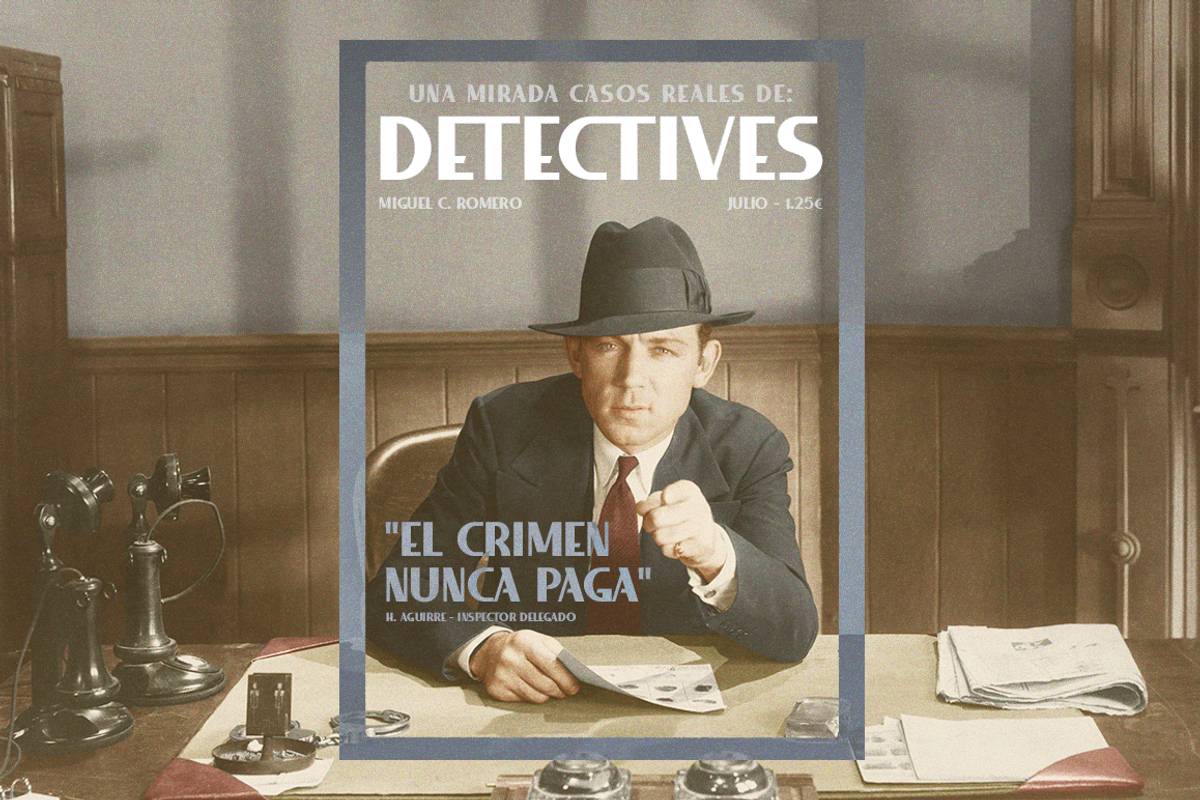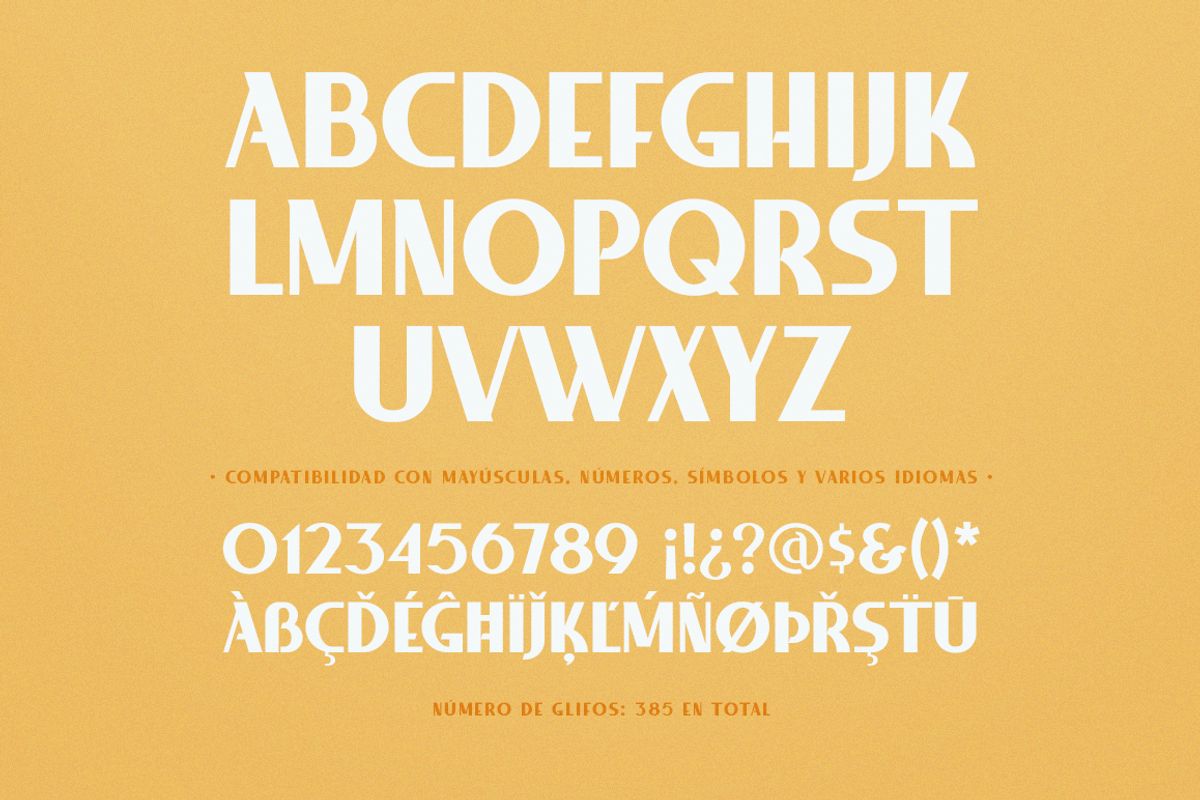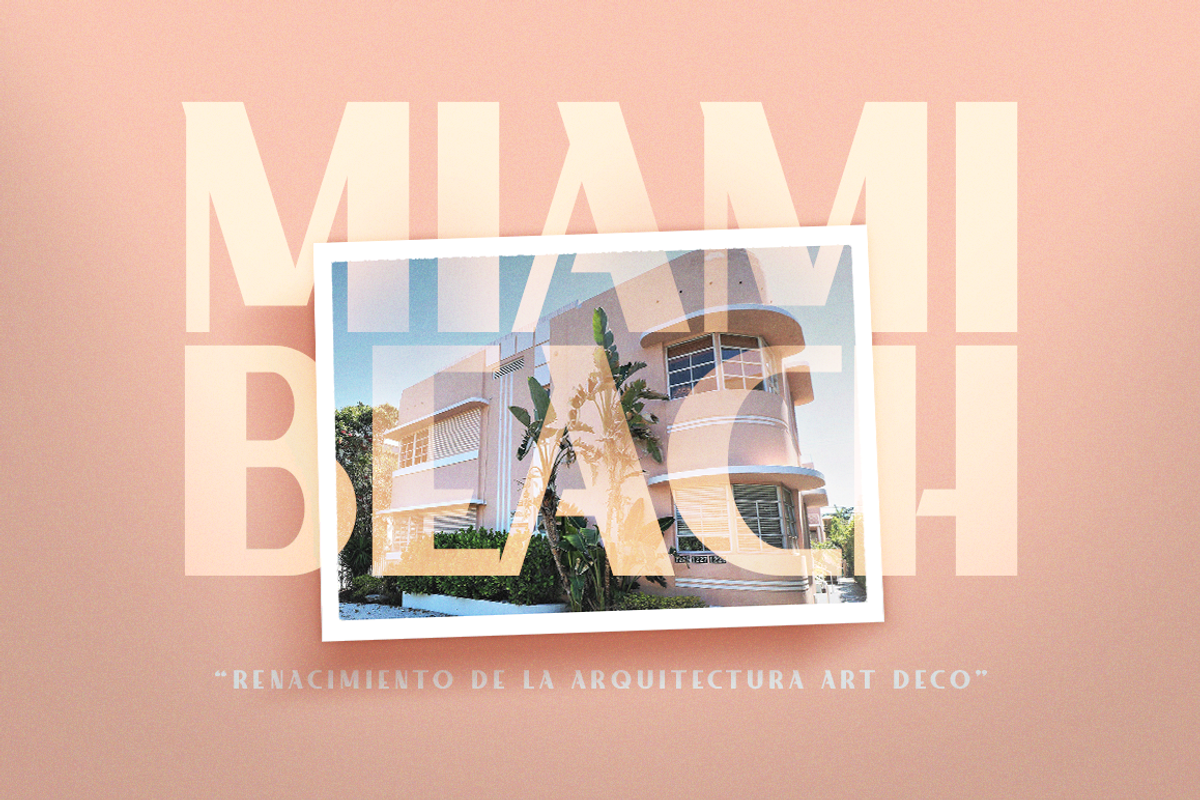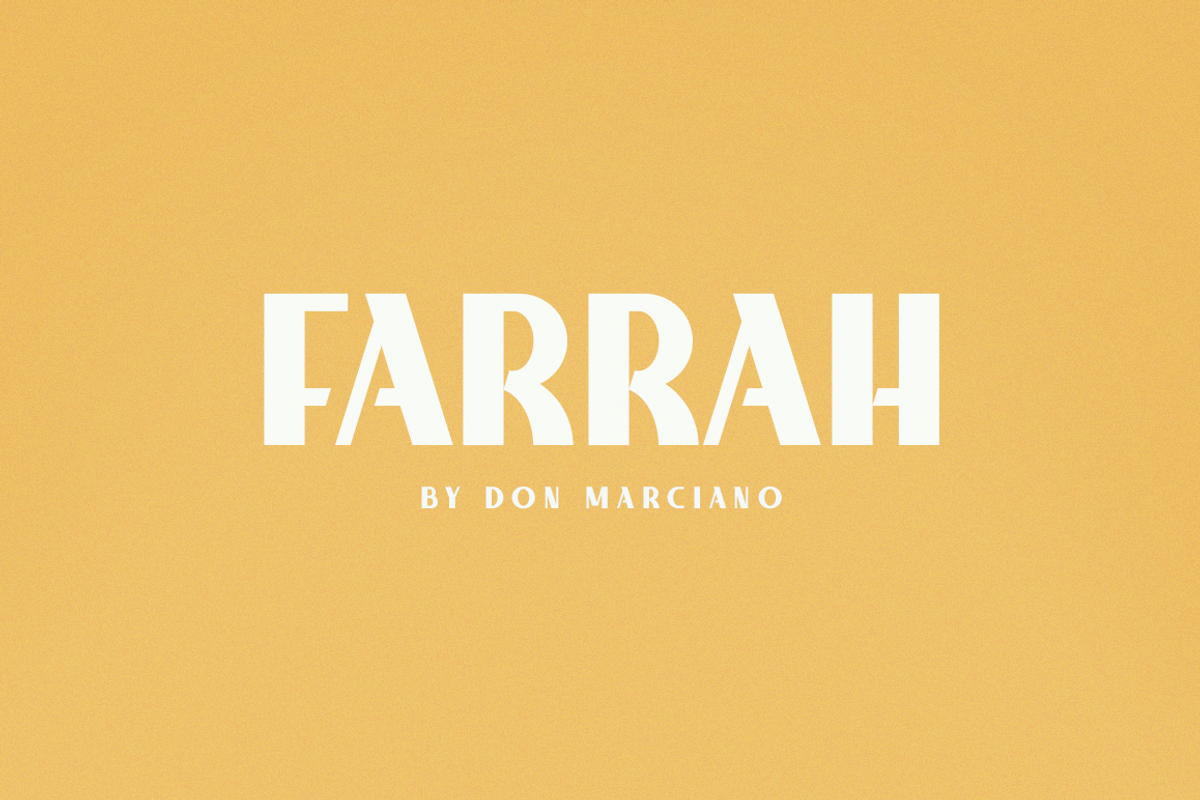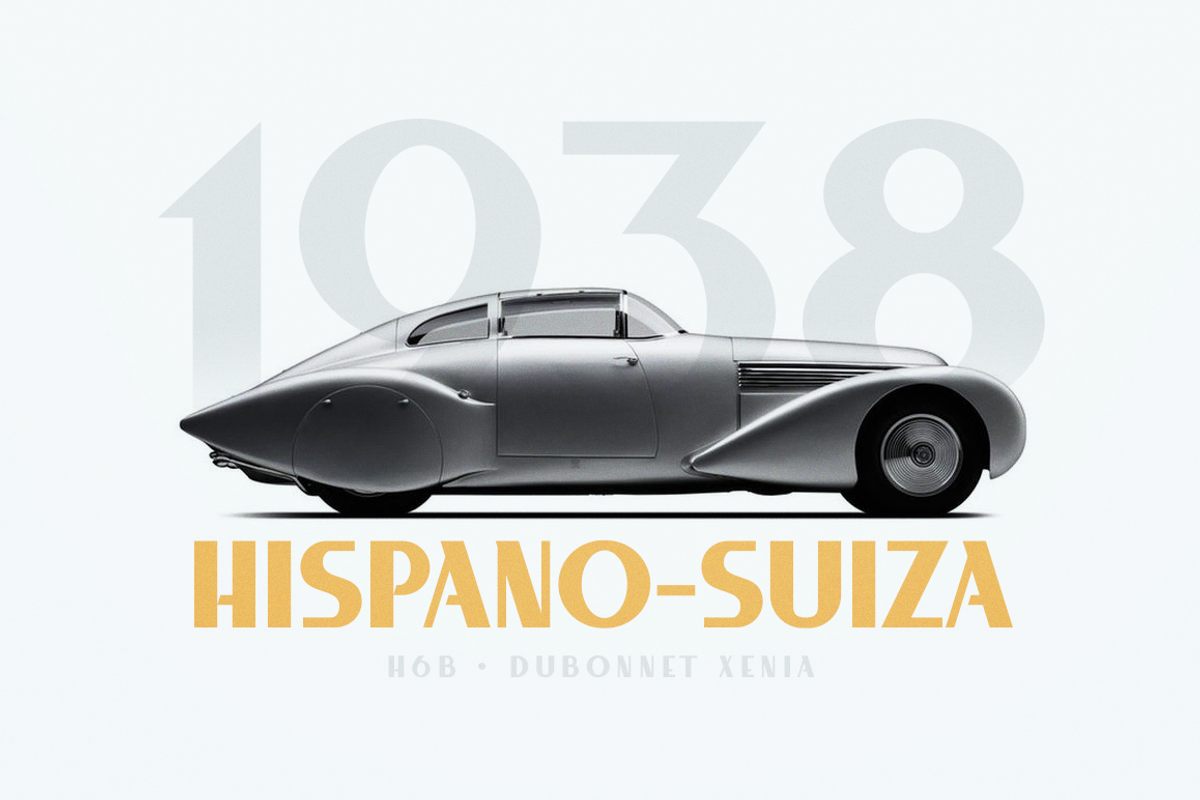
Farrah
Farrah is a bold art deco-style font that is created for recreating period designs with a modern aesthetic look and feel. The font is a clean and simple line appearance that helps elevate any type of design format. The file includes uppercase characters, standard punctuation, and international characters for multi-language support features to help you create amazing design results.